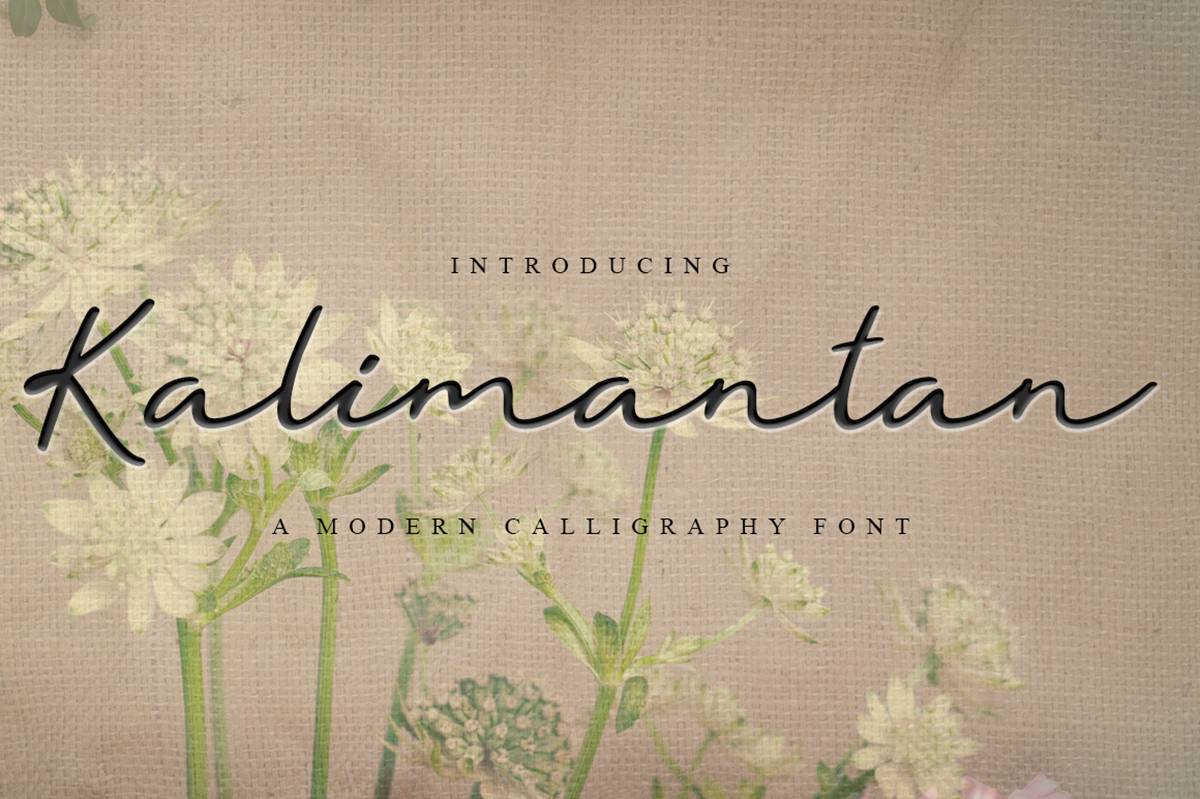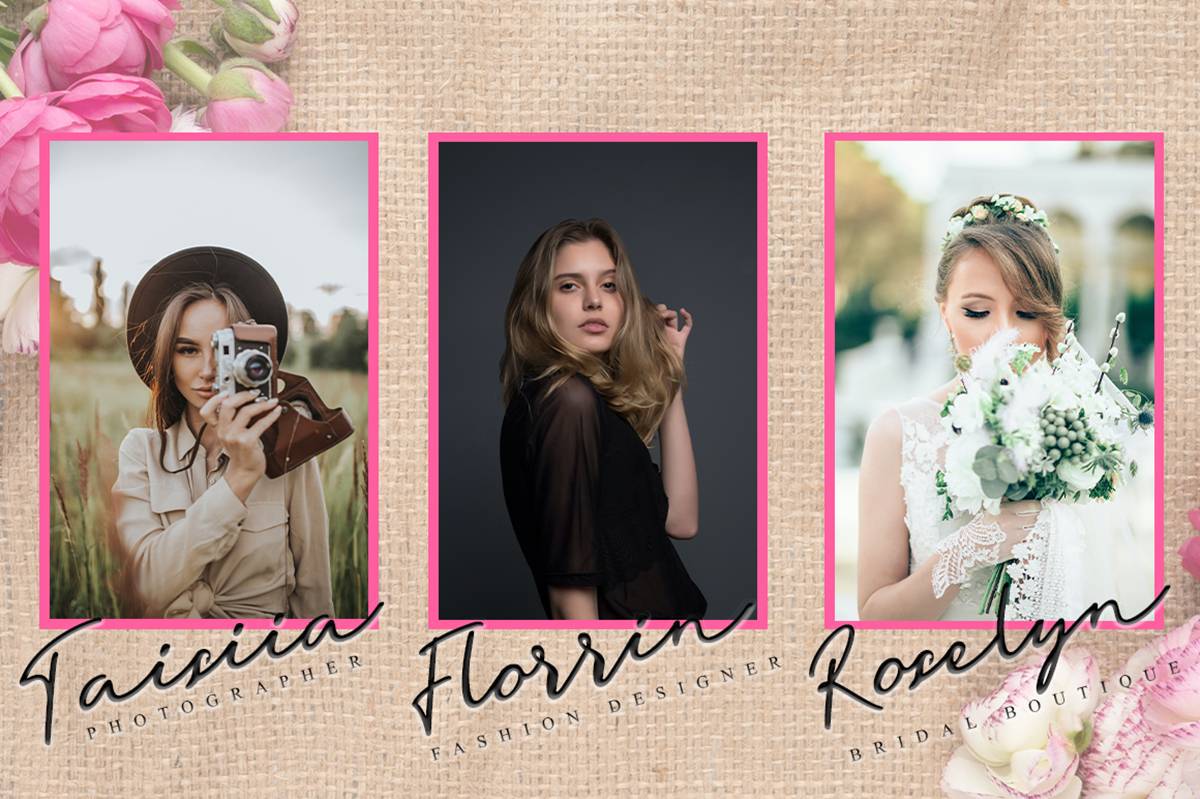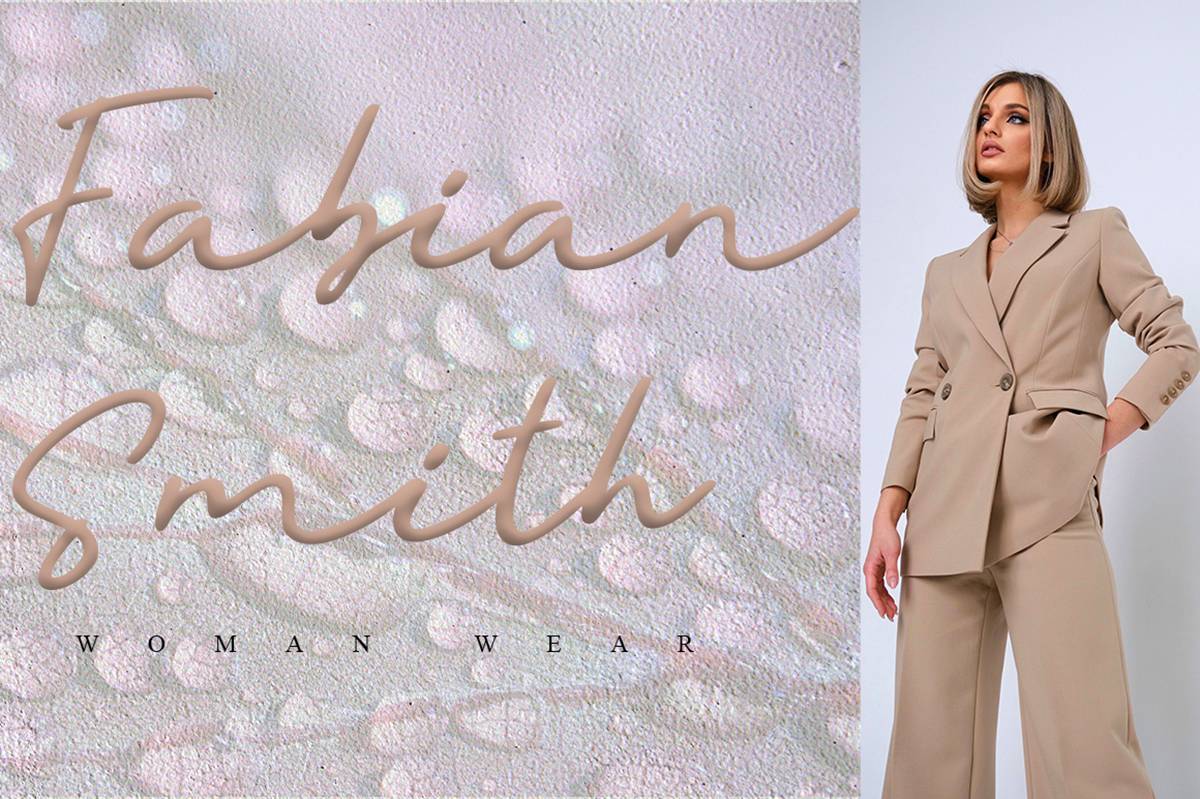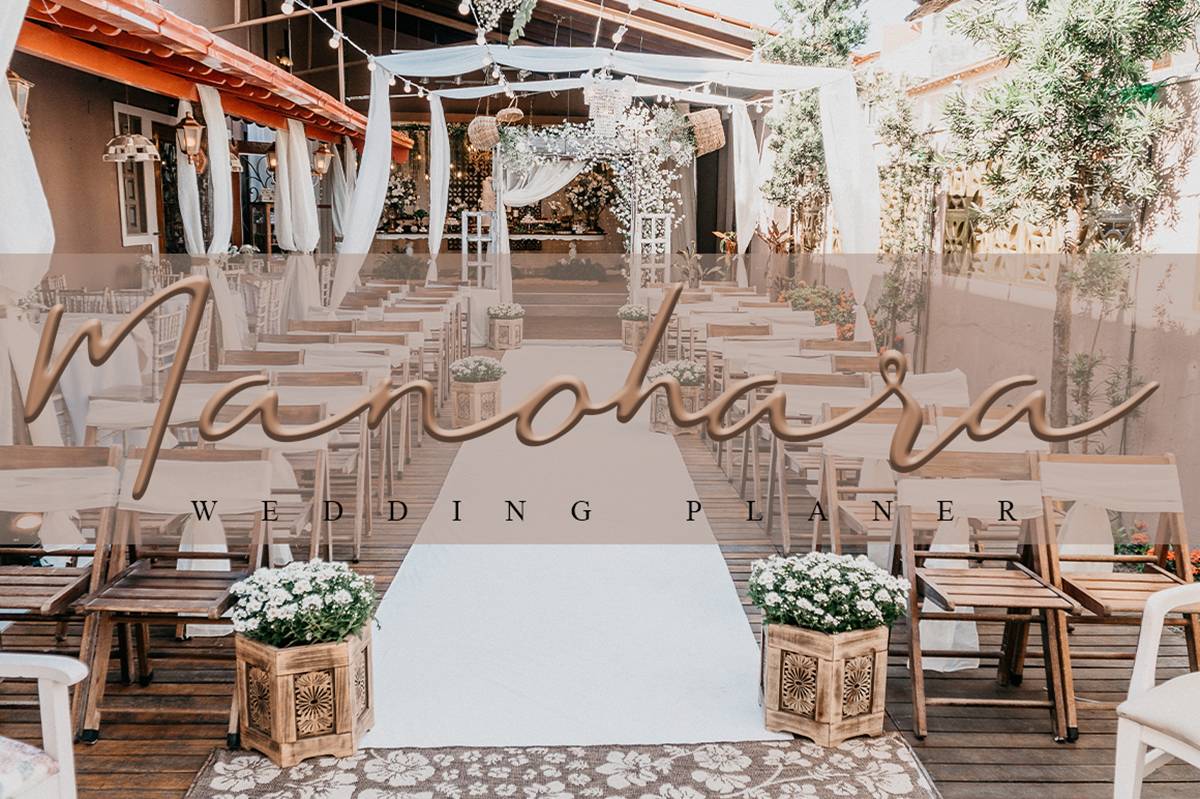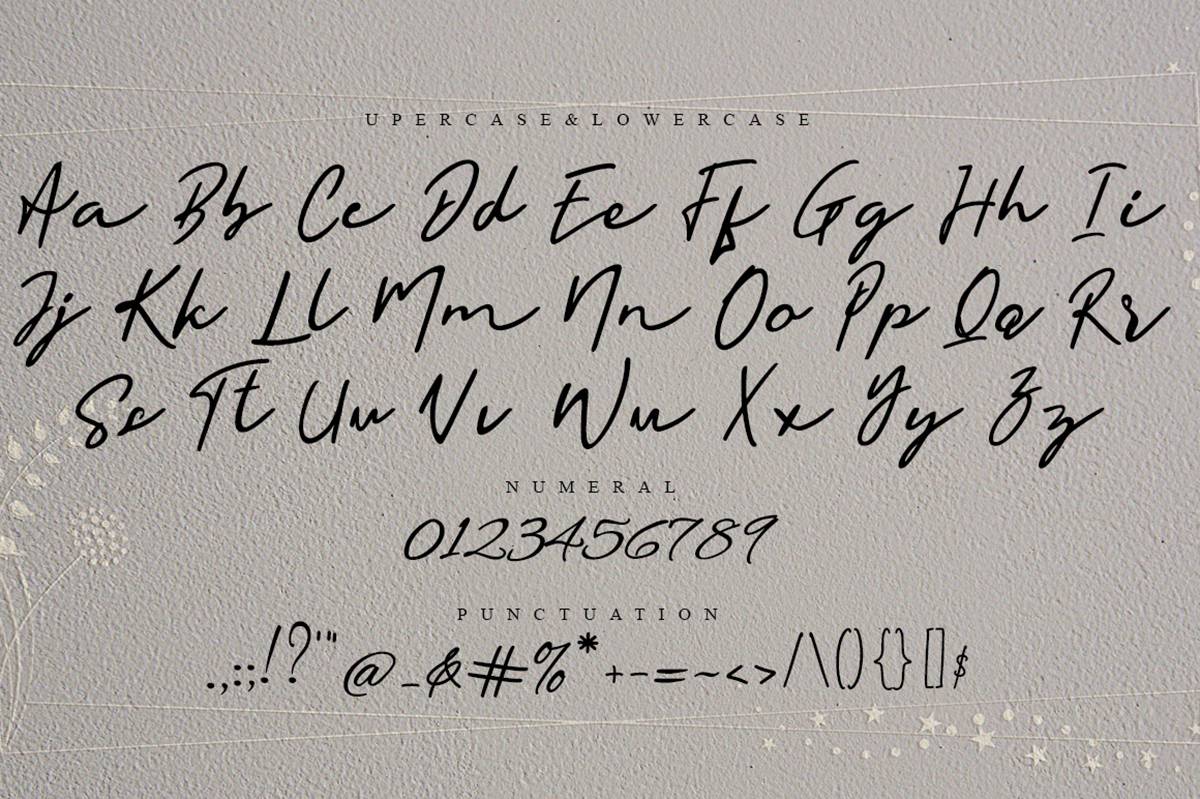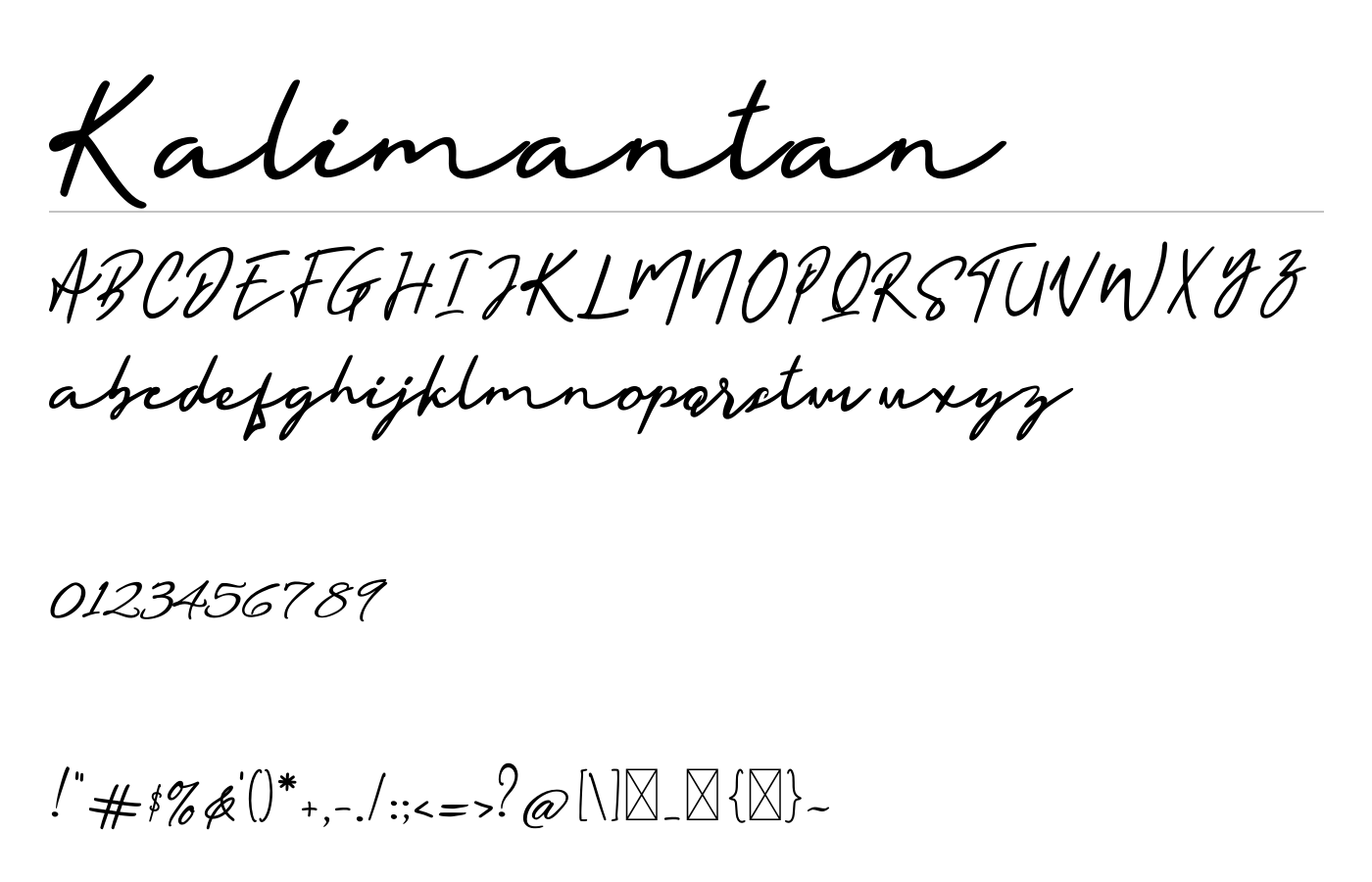
Kalimantan is a casual, handwritten script font characterized by its smooth, flowing strokes and slightly irregular letterforms that give it a natural, personal touch. With its moderate weight and airy spacing, it evokes a friendly and approachable feel, making it ideal for invitations, branding, or creative projects that seek a warm, authentic look. This font works well where a relaxed yet refined handwriting style is desired, adding personality without sacrificing readability.
Kalimantan Font
About Kalimantan Font